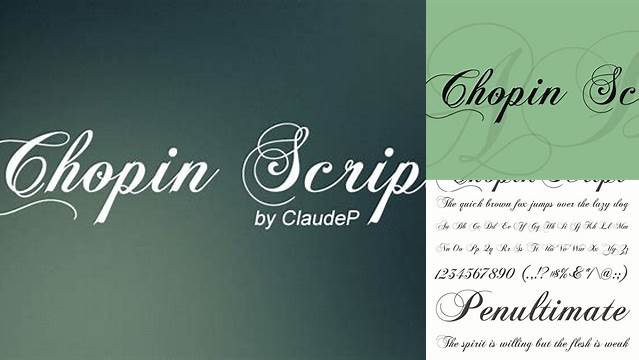
When it comes to elegant and flowing typography, Chopin Script Bold Font stands out as a timeless classic. Its graceful curves and refined strokes evoke a sense of sophistication, making it a popular choice for various design projects. Whether you're crafting wedding invitations, designing logos, or adding a touch of elegance to your website, Chopin Script Bold can elevate your work to new heights. In this comprehensive guide, we'll delve into the origins, characteristics, and applications of this beautiful font, as well as provide you with resources for free downloads. So, buckle up and get ready to explore the world of Chopin Script Bold!
What is Chopin Script Bold Font?
Chopin Script Bold is a beautiful typeface that belongs to the script font family. It is characterized by its fluid, calligraphic style, reminiscent of traditional handwriting. The "Bold" designation indicates that this particular version of the font has a heavier weight, making it stand out more prominently. This enhanced weight provides increased legibility and impact, especially in headlines and short text passages. The font's design incorporates elegant loops, swashes, and connections between letters, giving it a sense of movement and rhythm. Its sophisticated appearance makes it a popular choice for projects that require a touch of elegance and refinement. Chopin Script Bold is often used in formal invitations, branding materials, and creative designs that aim to convey a sense of luxury and artistry. The font's versatility allows it to be used effectively in both print and digital media, making it a valuable asset for designers and creatives alike. Overall, Chopin Script Bold is a font that seamlessly blends tradition with modern design sensibilities, offering a unique and captivating typographic solution.
History and Origin of Chopin Script Bold
The history of Chopin Script Bold is rooted in the tradition of calligraphy and the desire to emulate the elegance of handwritten script. While the exact origins of the font are somewhat vague, it is believed to have been inspired by the romantic era and the art of fine penmanship. The font's name, "Chopin," pays homage to the renowned Polish composer Frédéric Chopin, whose music is celebrated for its beauty, emotion, and technical brilliance. Just as Chopin's compositions evoke a sense of grace and sophistication, so too does the Chopin Script Bold font. It embodies a similar aesthetic, with its flowing lines and delicate curves creating a visual harmony that is both pleasing and impactful. The font's design reflects a deep appreciation for the art of calligraphy, with each letterform carefully crafted to capture the essence of traditional handwriting. Over time, Chopin Script Bold has become a beloved choice among designers and typographers who seek to add a touch of timeless elegance to their projects. Its enduring popularity is a testament to its inherent beauty and versatility, making it a valuable asset in the world of typography.
Key Characteristics of Chopin Script Bold Font
Chopin Script Bold Font possesses several distinctive characteristics that set it apart from other script fonts. These features contribute to its unique aesthetic and make it a popular choice for a wide range of design applications. Here are some of the key characteristics of Chopin Script Bold:
- Elegant and Flowing: The font is characterized by its fluid, calligraphic style, with graceful curves and refined strokes that evoke a sense of sophistication.
- Bold Weight: The "Bold" designation indicates that this version of the font has a heavier weight, providing increased legibility and impact, especially in headlines and short text passages.
- Swashes and Loops: Chopin Script Bold incorporates elegant swashes and loops, adding a touch of flair and visual interest to the letterforms.
- Connections: The letters in Chopin Script Bold are often connected, creating a sense of continuity and rhythm that mimics traditional handwriting.
- High Legibility: Despite its decorative nature, Chopin Script Bold maintains a high degree of legibility, making it suitable for both print and digital media.
- Versatility: The font is versatile and can be used effectively in a variety of design projects, from formal invitations to branding materials.
- Timeless Appeal: Chopin Script Bold has a timeless quality that makes it a classic choice for designers who seek to add a touch of elegance and refinement to their work.
Popular Uses for Chopin Script Bold Font
The Chopin Script Bold font is incredibly versatile, making it suitable for a wide array of design projects. Its elegant and flowing style lends itself particularly well to applications where a touch of sophistication and refinement is desired. Here are some popular uses for Chopin Script Bold:
- Wedding Invitations: Its romantic and graceful appearance makes it a top choice for wedding invitations, save-the-dates, and other wedding-related materials.
- Logos and Branding: Chopin Script Bold can add a touch of elegance to logos and branding materials, helping to create a memorable and sophisticated brand identity.
- Greeting Cards: The font's delicate curves and refined strokes make it perfect for greeting cards, thank-you notes, and other heartfelt messages.
- Posters and Flyers: When used sparingly, Chopin Script Bold can add a touch of sophistication to posters and flyers, especially for events or products that cater to a discerning audience.
- Web Design: Chopin Script Bold can be used in website headers, banners, and other design elements to create a visually appealing and elegant online presence.
- Book Covers: The font's classic and timeless appeal makes it a great choice for book covers, especially for genres such as romance, historical fiction, and poetry.
- Certificates and Awards: Chopin Script Bold can add a touch of prestige to certificates, awards, and other formal documents.
Chopin Script Bold Font is a timeless classic that can add a touch of elegance and sophistication to any design project. Its graceful curves, refined strokes, and versatile nature make it a popular choice for wedding invitations, logos, branding materials, and more. By following the tips and guidelines outlined in this comprehensive guide, you can effectively use Chopin Script Bold to create stunning and memorable designs. Whether you're a seasoned designer or just starting out, Chopin Script Bold is a valuable asset to have in your typographic toolkit. So go ahead, download it for free, and start creating beautiful designs today!